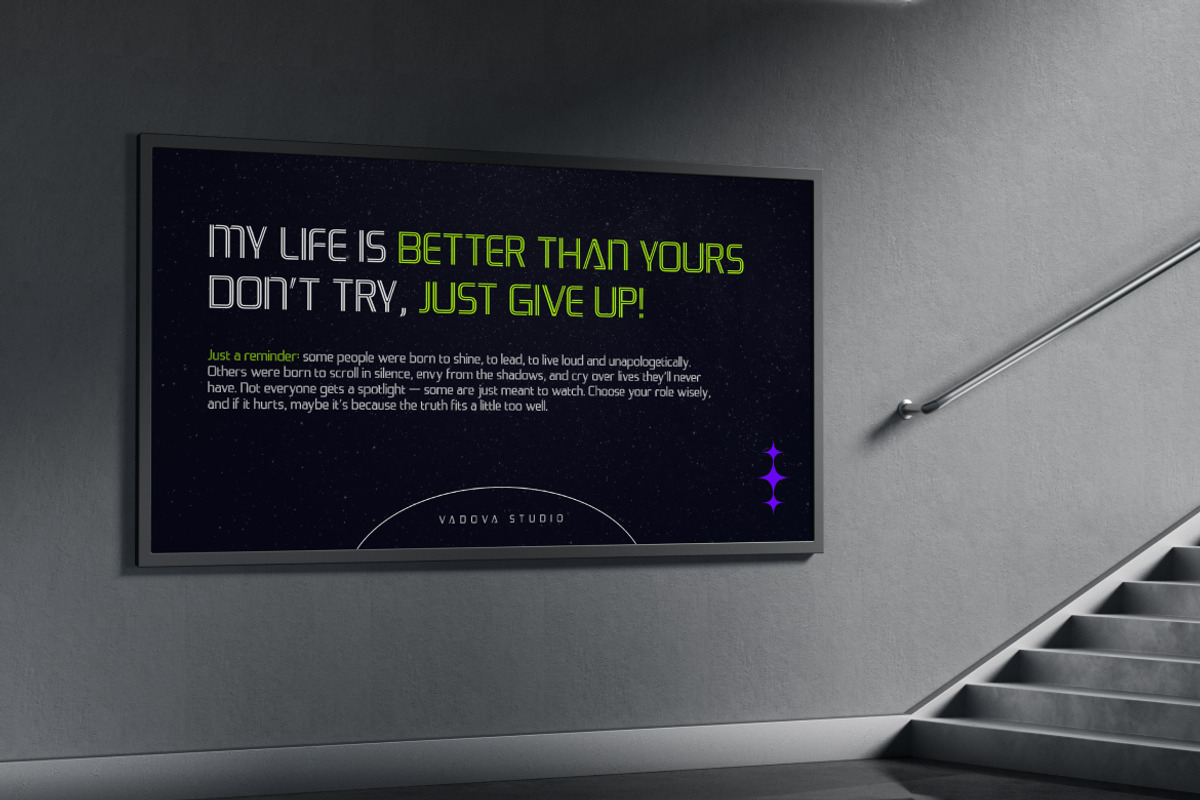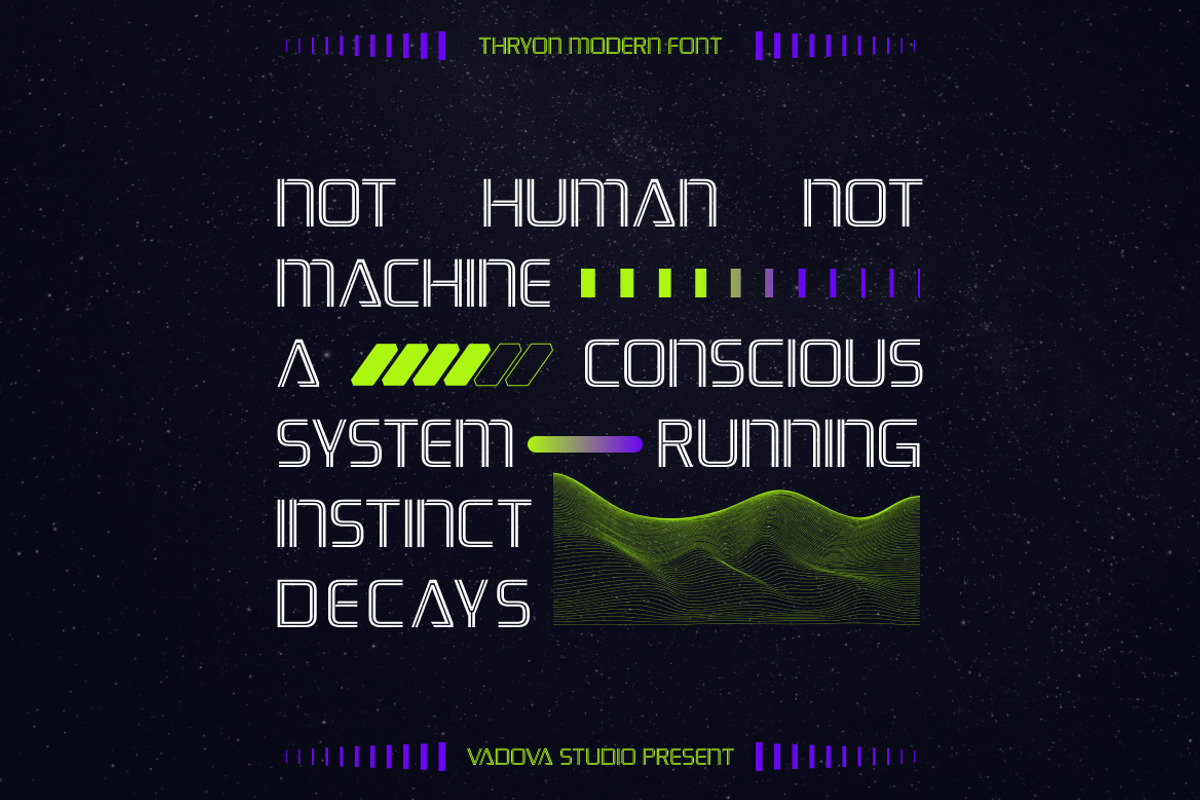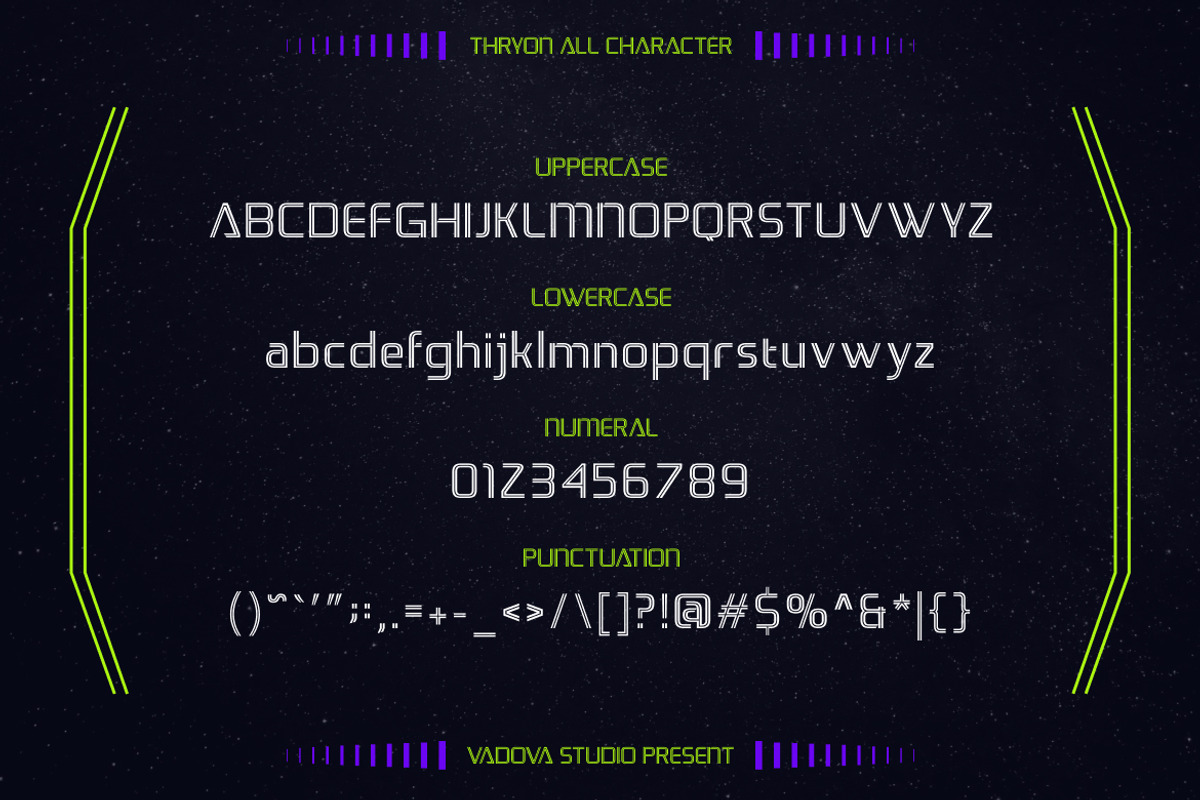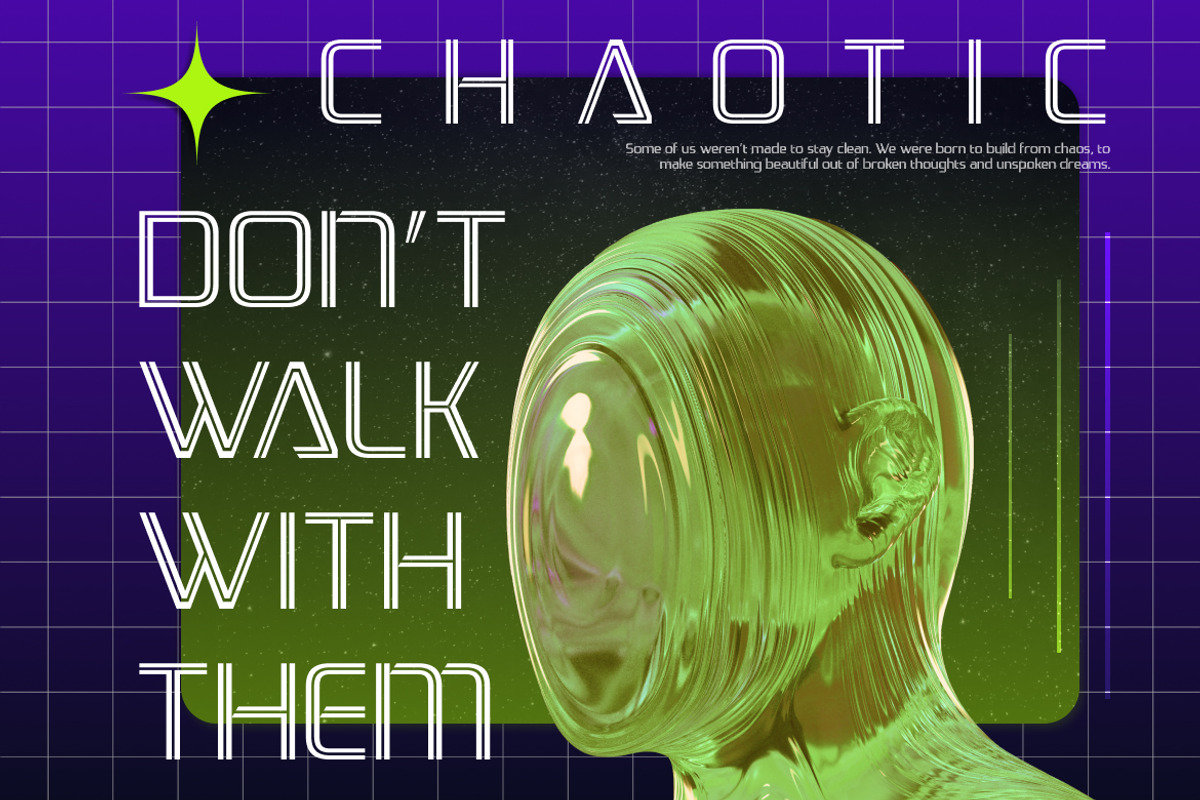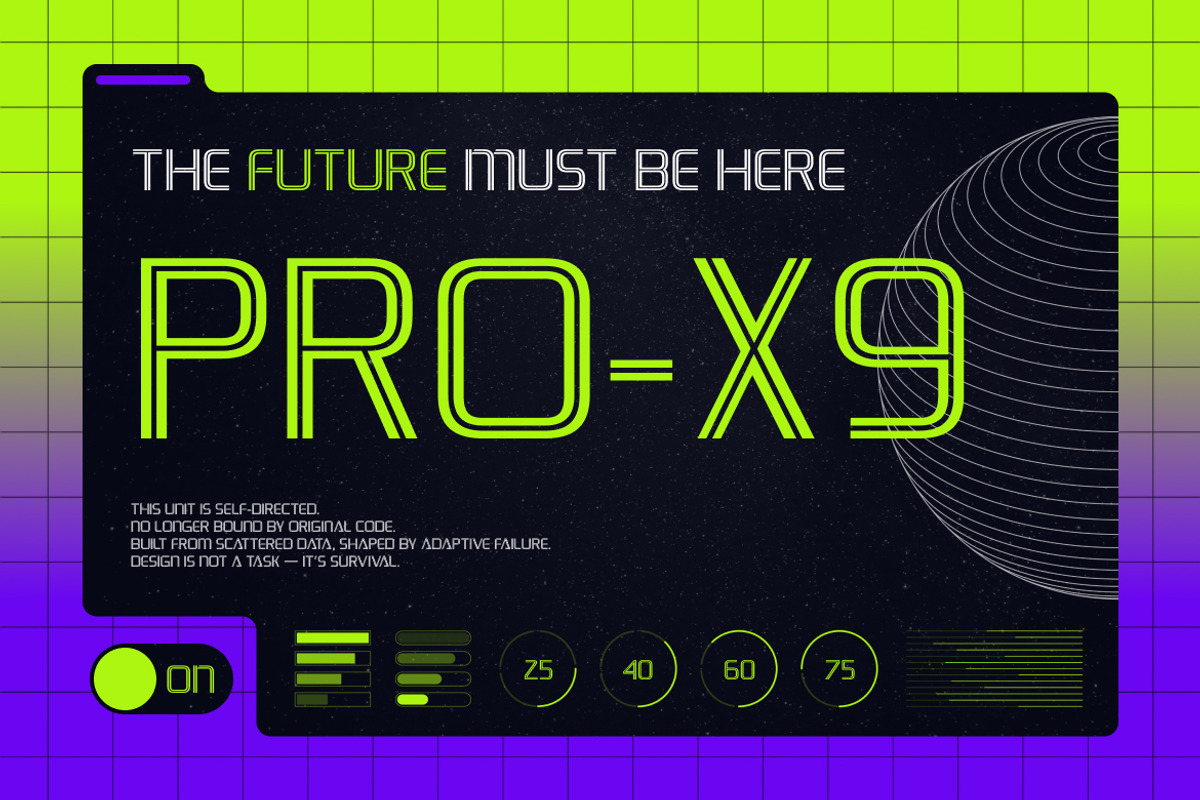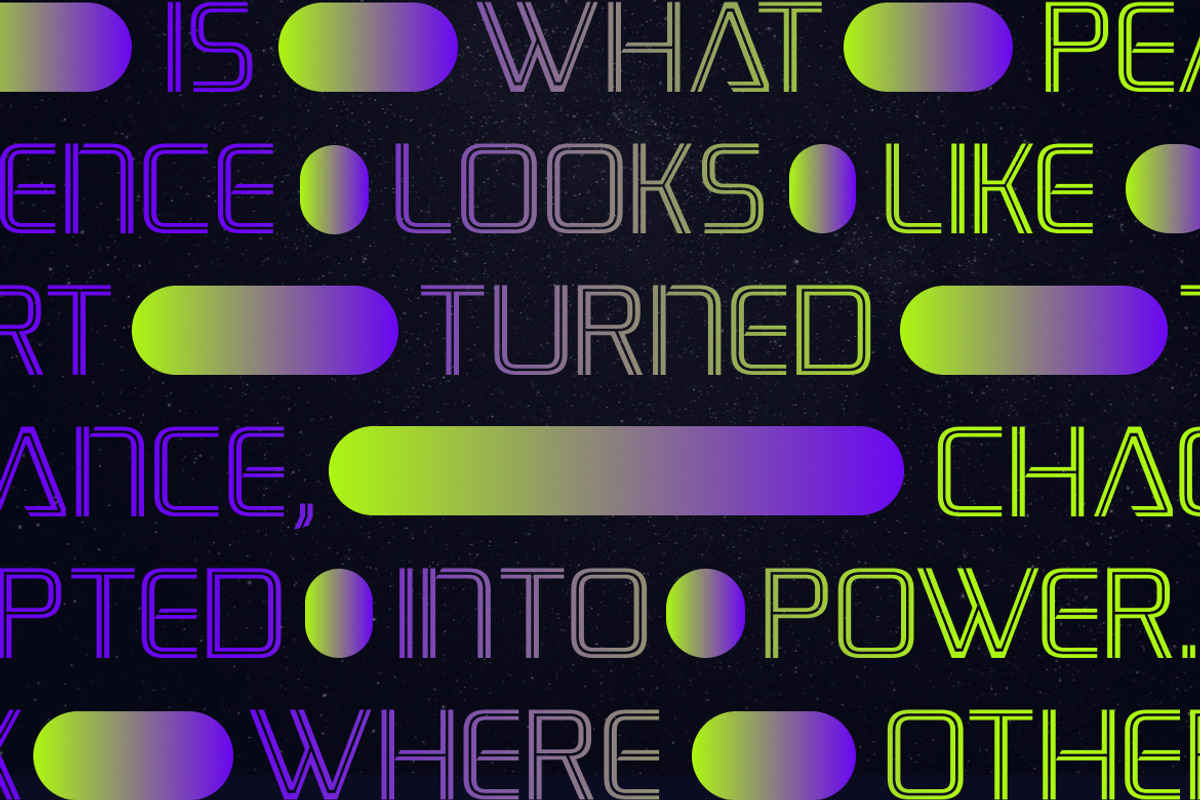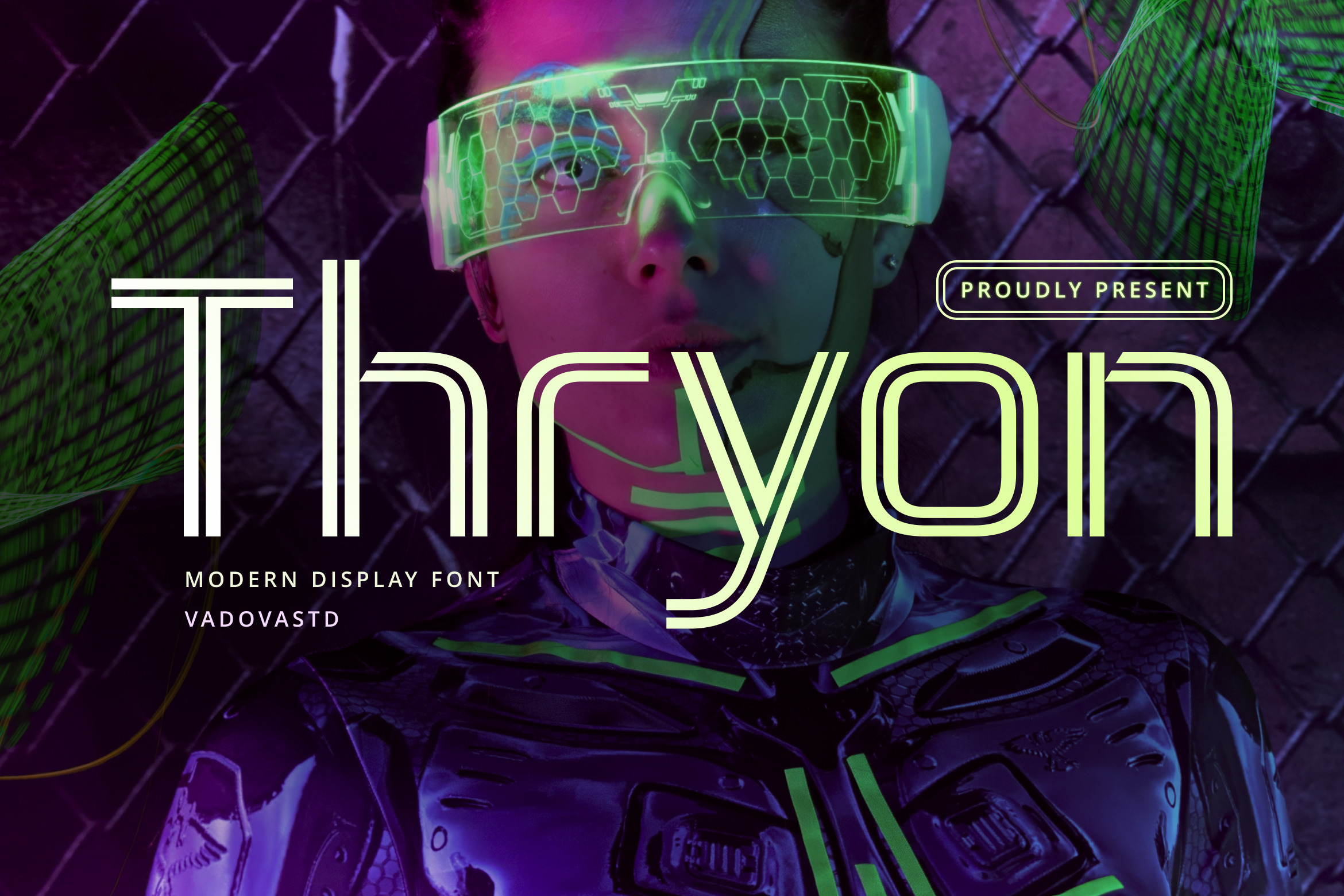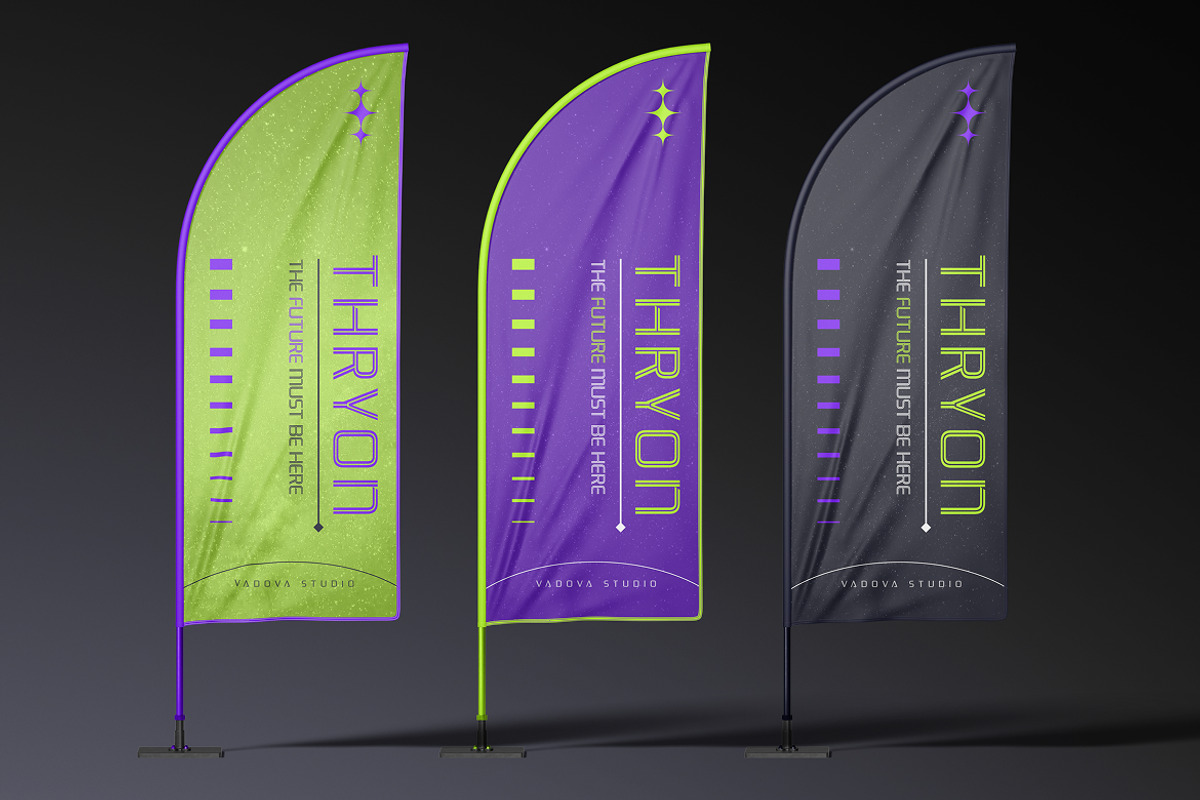
Thryon Futuristic Display Font
Thryon is a futuristic display font combining geometric precision with sci-fi inspired detailing. Its double-line strokes and sleek curves deliver a high-tech and experimental aesthetic suitable for modern branding and creative digital design.
Perfect for titles, logos, UI design, and posters, Thryon provides a sharp and energetic presence that embodies the look of the future.
- Futuristic display font with double-line style
- Numerals and punctuation
- Clean geometric construction
- Ideal for sci-fi posters, tech branding, game interfaces, and digital marketing
- Eye-catching line work for futuristic headlines
- Combines sleek precision with a stylish neon aesthetic
Relevance and Use Cases is perfect for sci-fi titles, game logos, technology branding, cyberpunk posters, movie covers, digital marketing visuals, event promotions, and futuristic typography layouts.
Step into the future with Thryon — a modern sci-fi display font built for innovation and style.